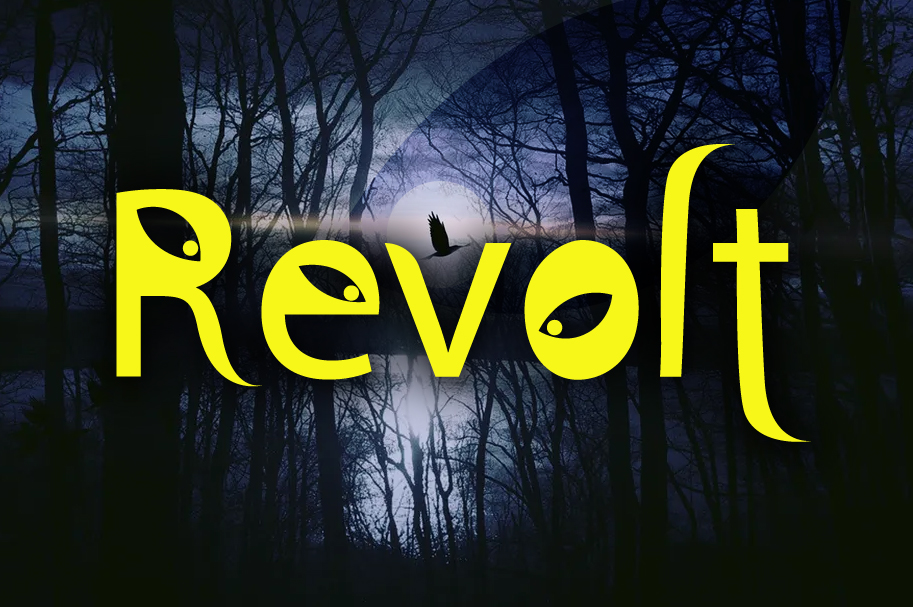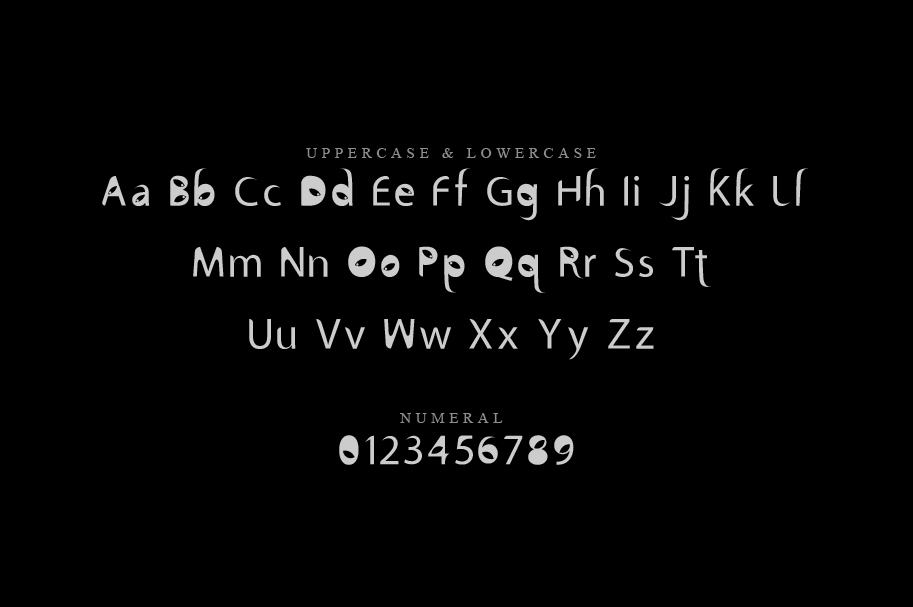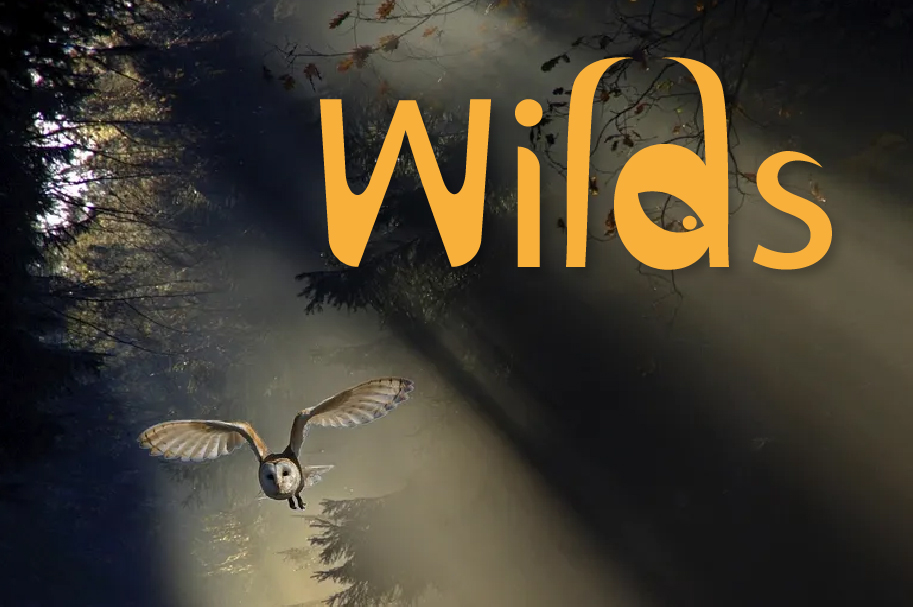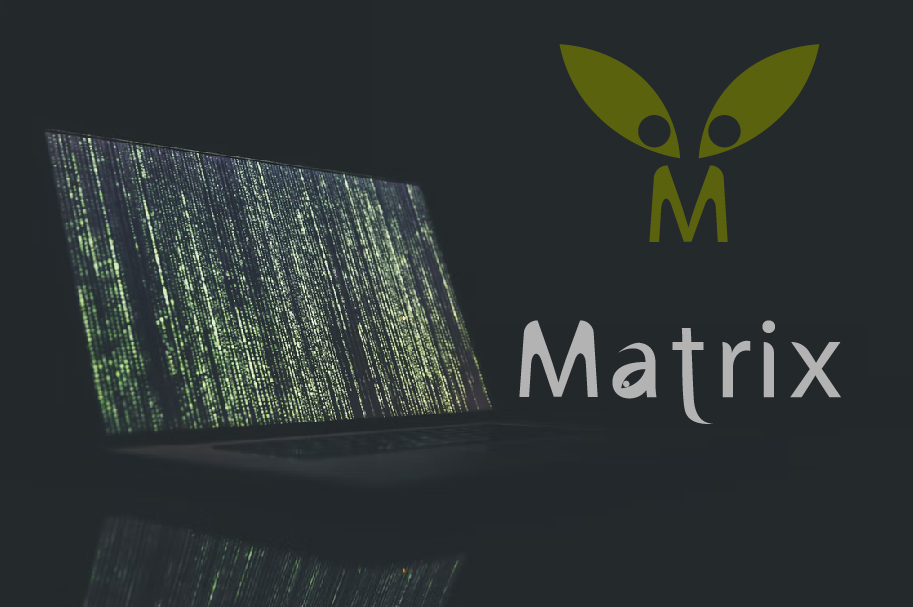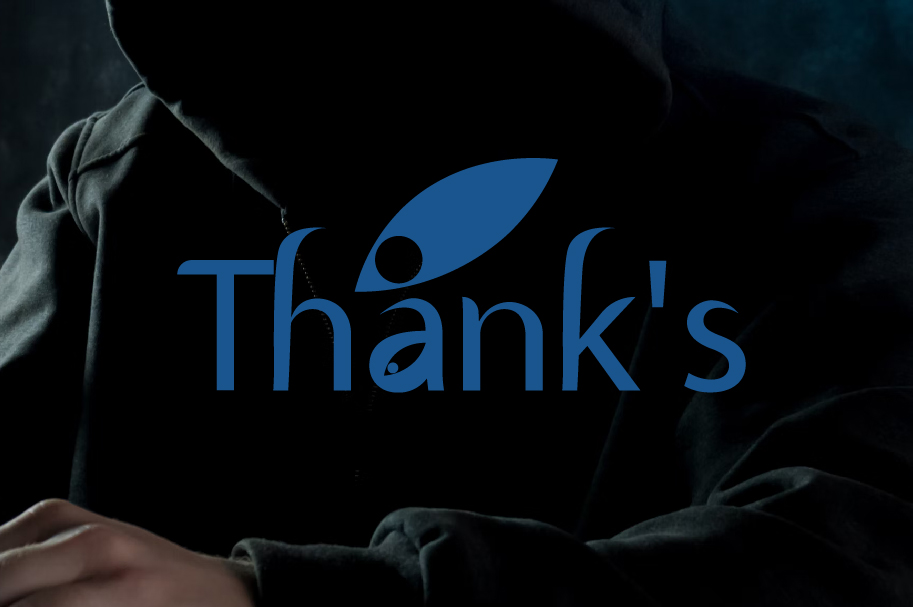
Revolt Font
Revolt Display Font
This is a cool and neat lettered display font. Its natural and unique style makes it incredibly fitting to a large pool of designs. The only limit is your imagination!